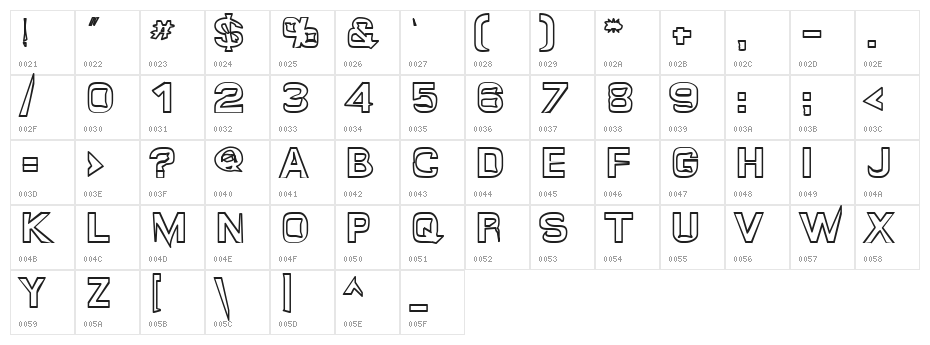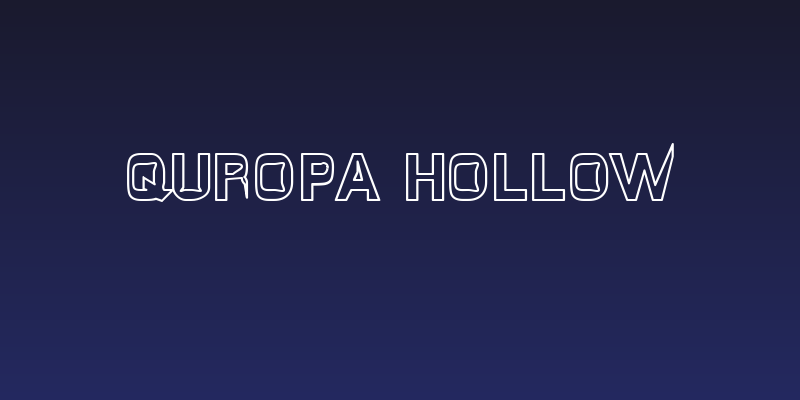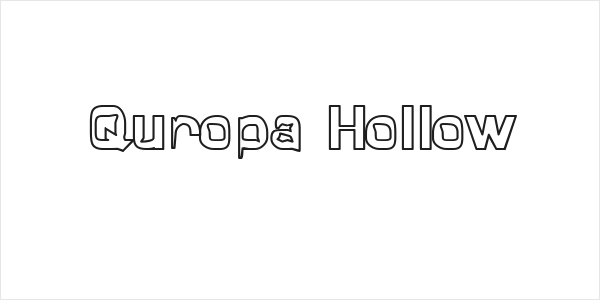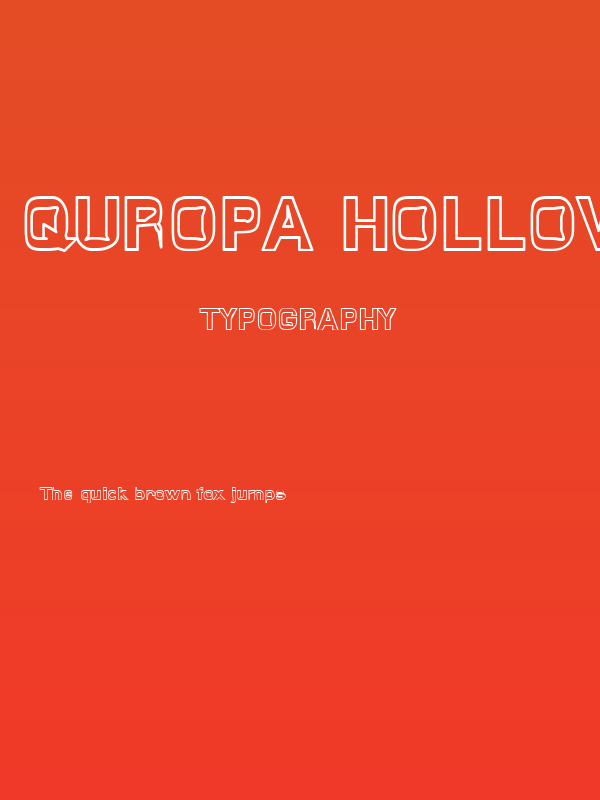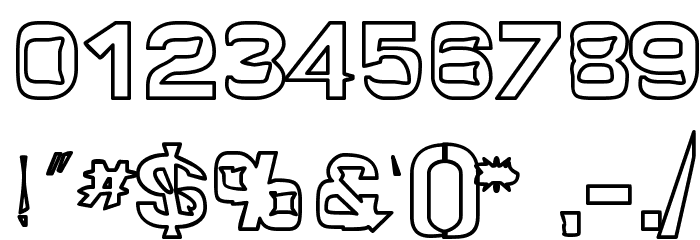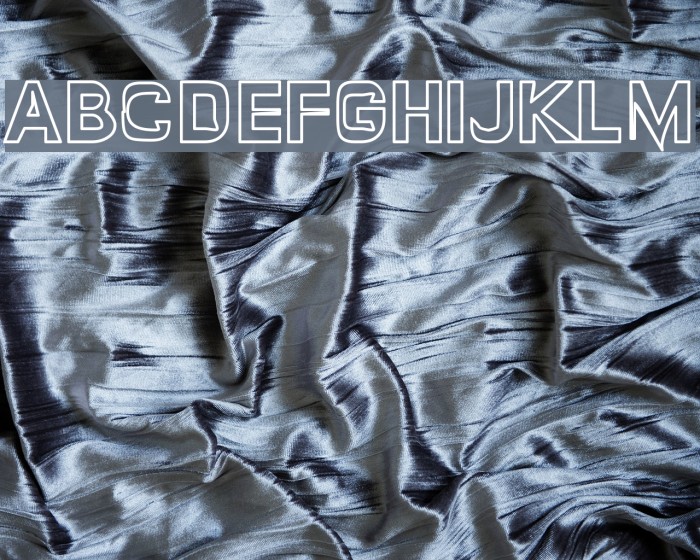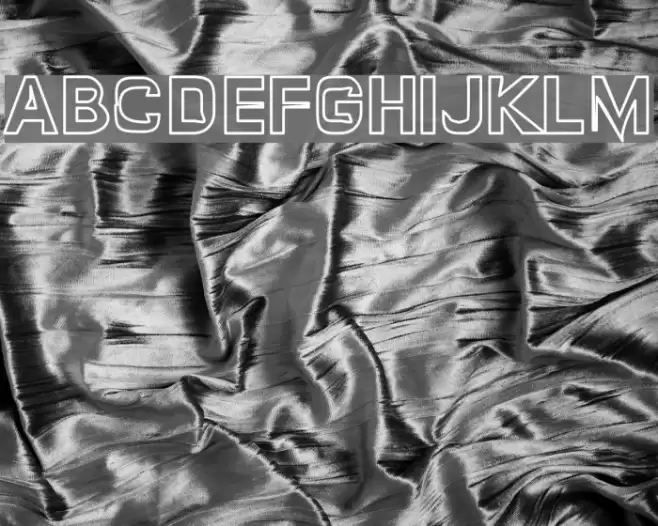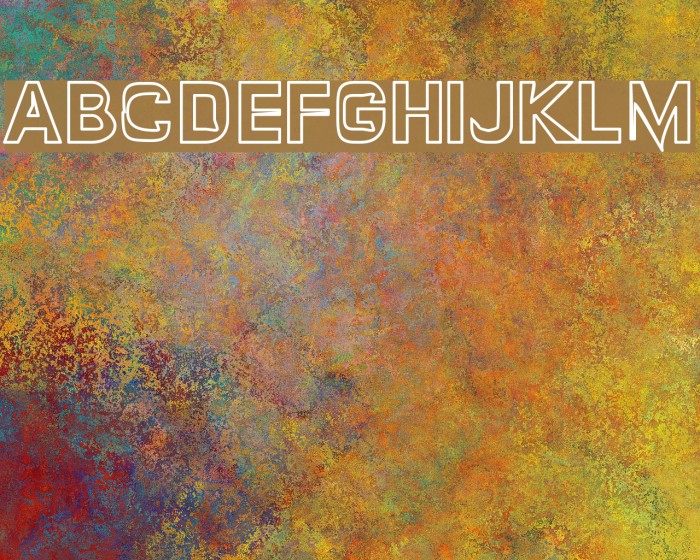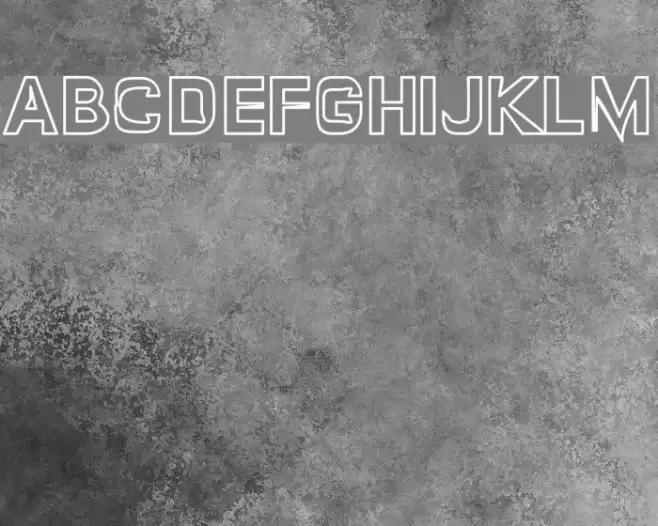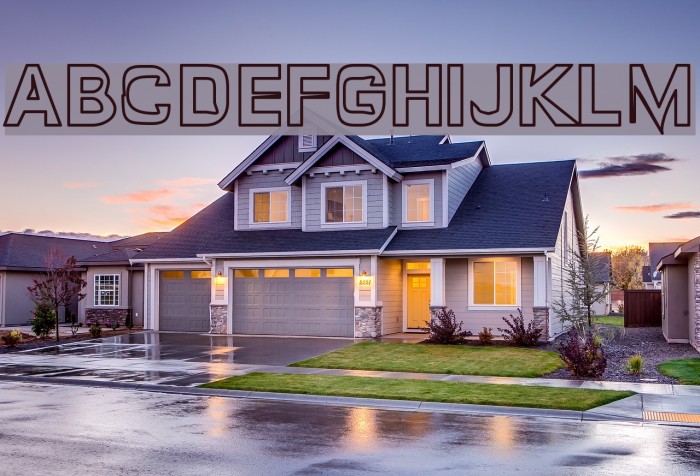
Quropa Hollow Font
Quropa Hollow Description
This font features a distinctive hollow design, characterized by its outlined letterforms that create a striking visual impact. The uppercase and lowercase letters maintain a consistent geometric structure, offering a modern and clean appearance. The numerals and special characters follow the same hollow style, ensuring uniformity across all glyphs. The font's open design allows for creative layering and color usage, making it versatile for various design applications. Its unique style is both eye-catching and functional, suitable for projects that require a bold statement.
| Proposed Projects | Ideal for posters, logos, headlines, and branding materials where a bold and modern look is desired. |